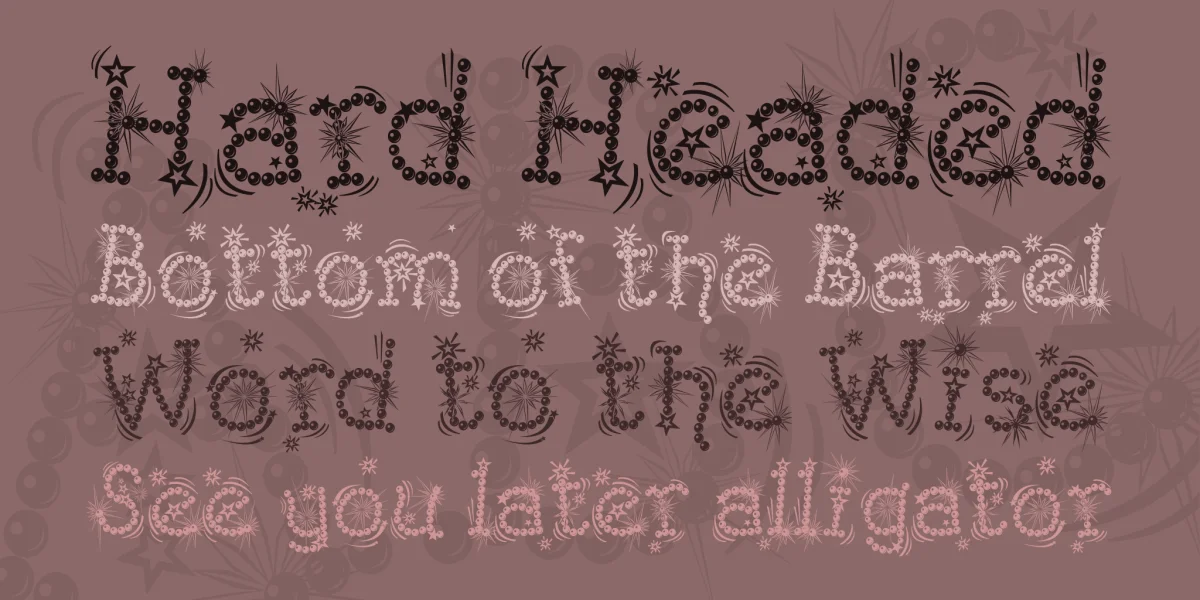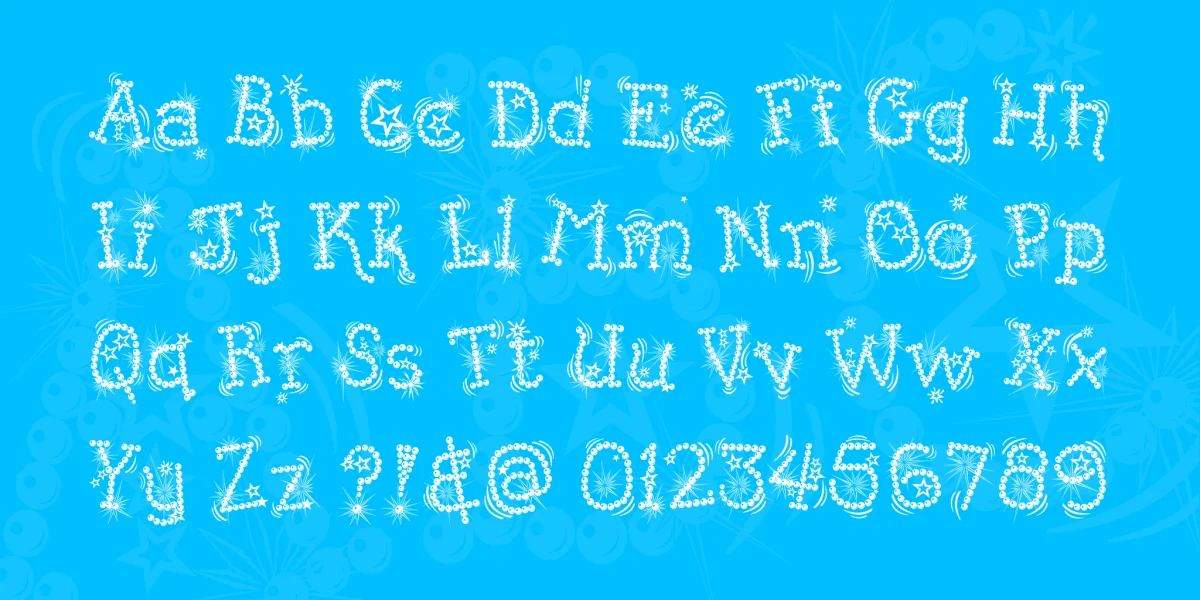
Kingthings Flashbang is a little more formal than its Dad -but not much! It is also even more of a display face - it needs to be at least 2 inches tall to work properly, not really a text face...